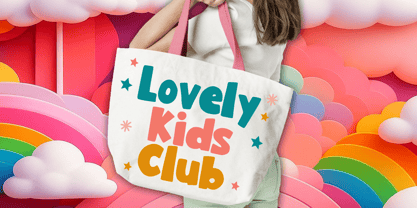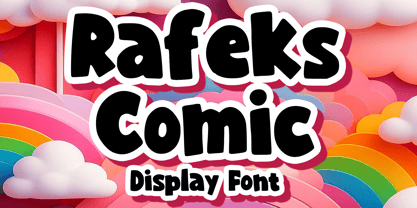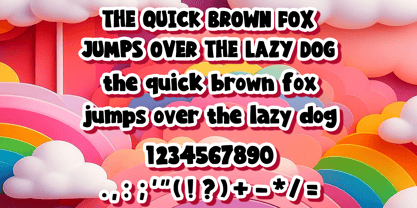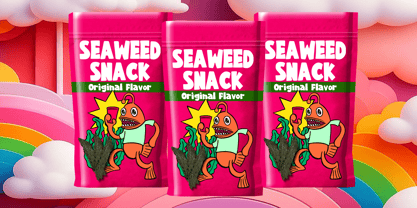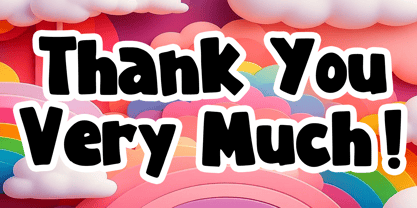
Rafeks Comic
by Mvmet
The Rafeks Comic Font Family was designed by Gabriel Valentinus and published by Mvmet. Rafeks Comic contains 1 styles. More about this family
Introducing Rafeks Comic - an effervescent, bold comic font designed to unleash limitless imagination and creativity. This playful typeface is a powerful asset that can elevate your design projects beyond the ordinary. Imagine using Rafeks Comic for a wide range of design adventures, from creating intriguing stickers and eye-catching t-shirt designs to developing unique logo concepts. It's a golden key that unlocks the potential of magazine and book covers, making them stand out, while adding a vibrant spark to comics and cartoons. Rafeks Comic goes beyond just design; even in everyday typing, this font infuses life into your text. With Rafeks Comic, your designs will embody the perfect blend of super-cool charisma and engaging sharpness, making it ideal for branding, web design, and editorial projects.
Designers: Gabriel Valentinus
Foundry: Mvmet